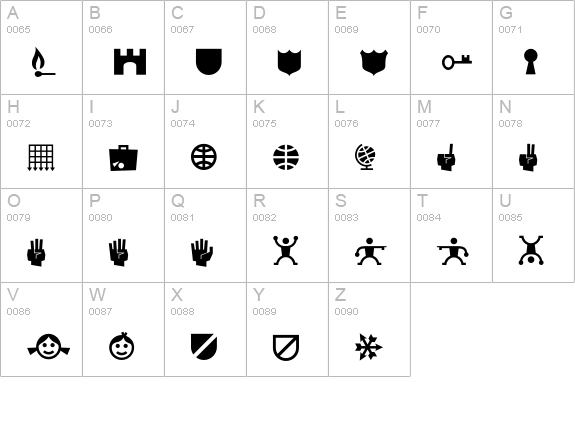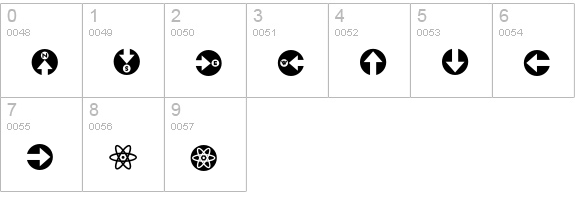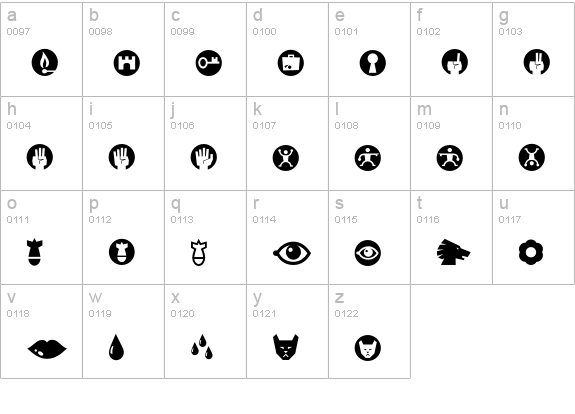
RiansDingbats-Two Font Details
RiansDingbats-Two font is a magnificent collection of decorative symbols and icons that are sure to add a touch of whimsy and creativity to any design project. With its intricate and eye-catching designs, this font is perfect for adding a unique flair to invitations, posters, logos, and more. Featuring a wide range of symbols, from playful animals to elegant flourishes, RiansDingbats-Two font offers endless possibilities for customization and personalization. Whether you're looking to add a touch of charm to a greeting card or create a captivating logo, this font has something for everyone. What makes RiansDingbats-Two font even more appealing is that it is freely available to download at FontsMarket.com. This means that you can easily access this incredible font without breaking the bank. With just a few clicks, you can enhance your designs with the stunning and versatile symbols that RiansDingbats-Two font has to offer. The attention to detail and craftsmanship in each symbol is evident, making RiansDingbats-Two font a must-have for any designer or creative enthusiast. The versatility of this font allows it to seamlessly blend into various design styles, giving you the freedom to experiment and express your unique vision. So, whether you're a professional designer or someone who simply enjoys adding a touch of creativity to their projects, RiansDingbats-Two font is the perfect tool to elevate your designs. Download it for free at FontsMarket.com and unlock a world of possibilities with this exceptional font.